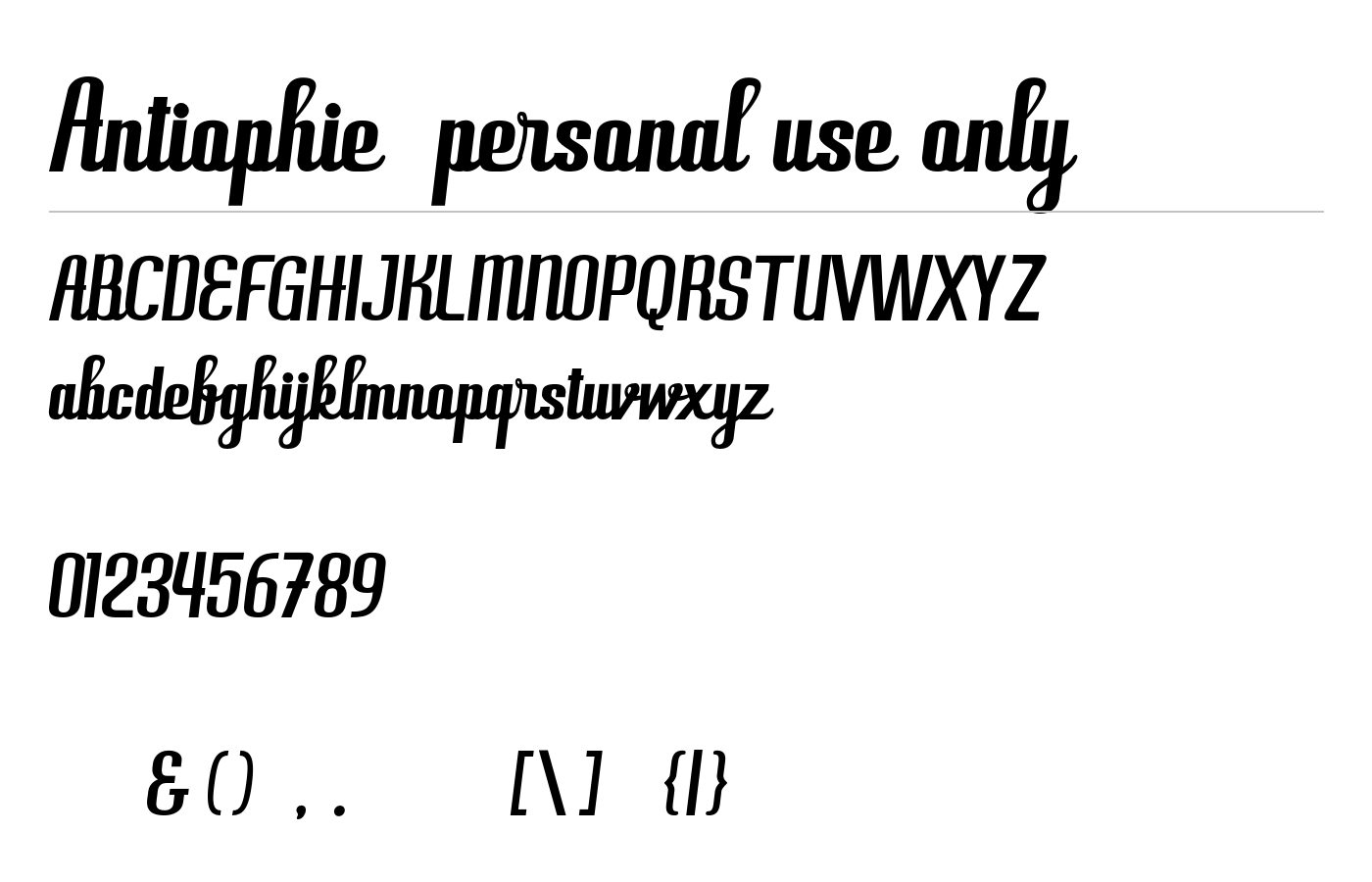
Antiophie is a condensed, bold script-style sans serif font with a sleek, vintage flair. Its tall, narrow letterforms and smooth curves create a dynamic yet elegant feel, making it ideal for standout headlines, logos, and branding that seek a stylish, retro-inspired look. This font works well for fashion, packaging, and editorial designs where an expressive, distinctive personality is needed.
Antiophie personal use only Font
About Antiophie personal use only Font